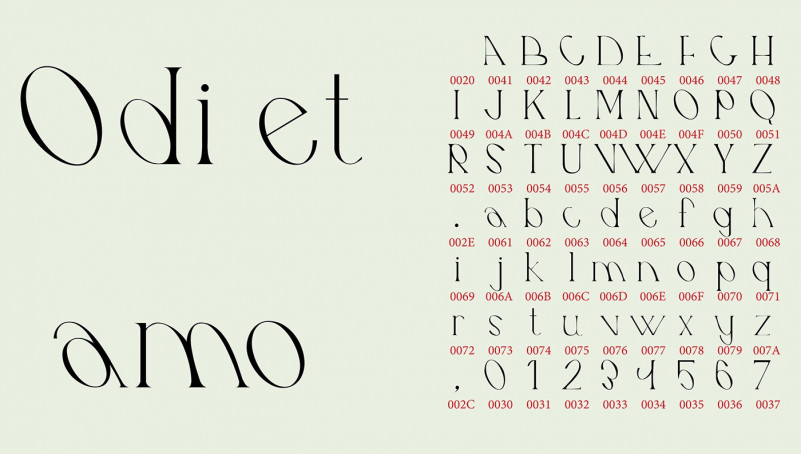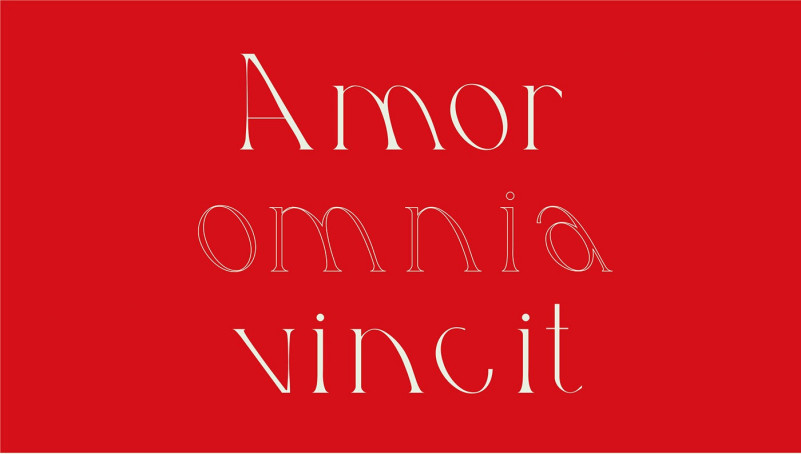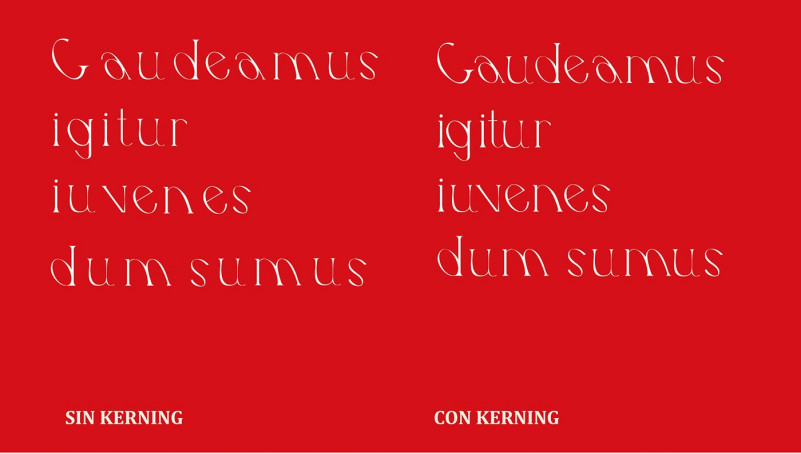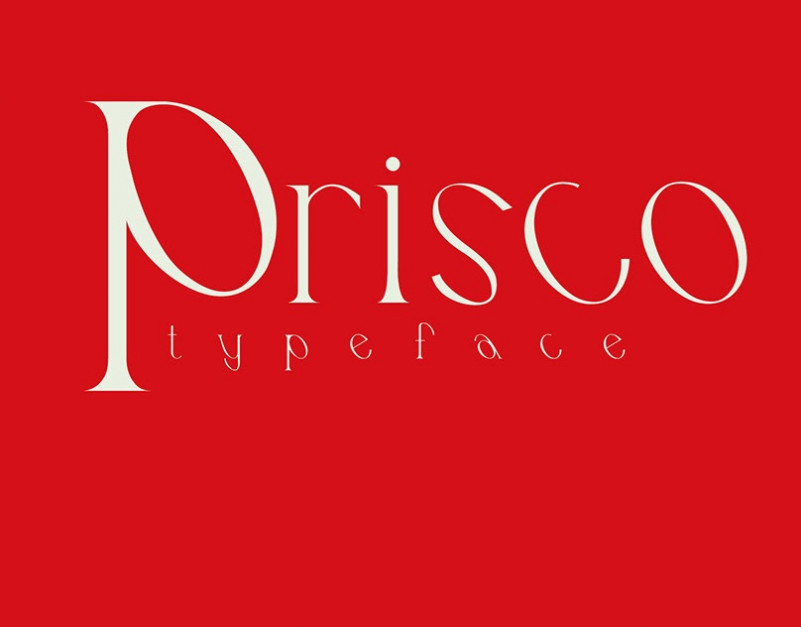
Prisco Font
Prisco Serif Font
It’s an elegant and unique display serif font manufactured by Coral Ruiz. This font is perfect choice for people looking for clean, modern, minimalist, elegant, beauty design styles. Suitable for almost any graphic designs such as logo, branding materials, business cards, gift cards, t-shirt, cover, thumbnail, print, poster, photography, quotes .etc